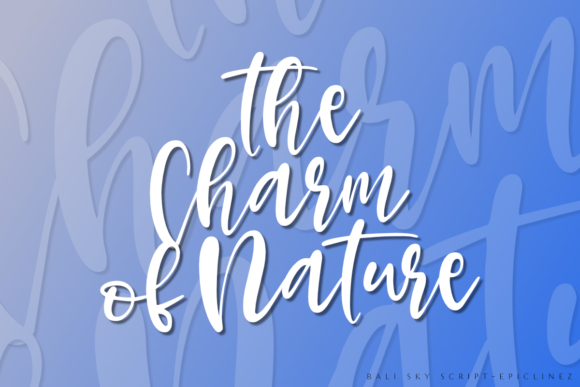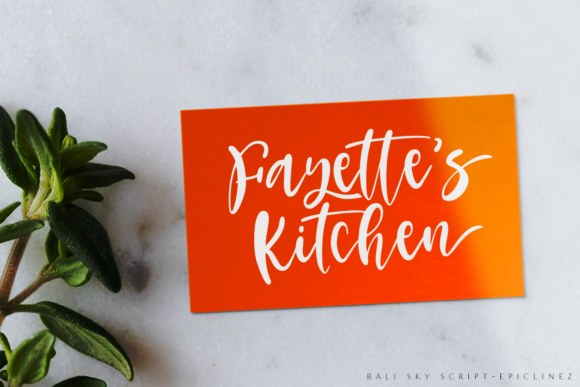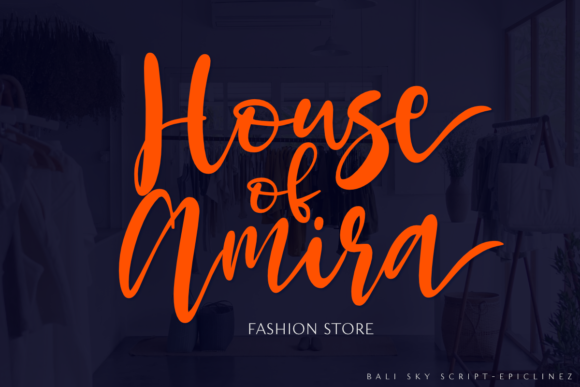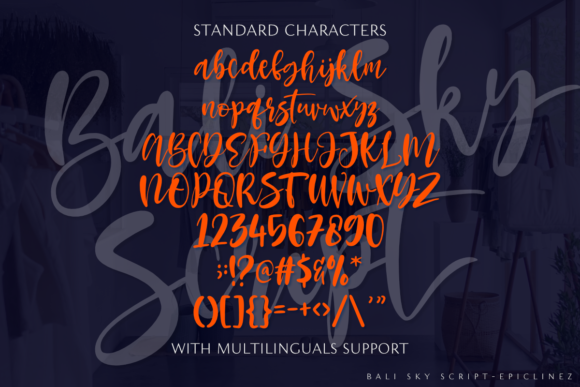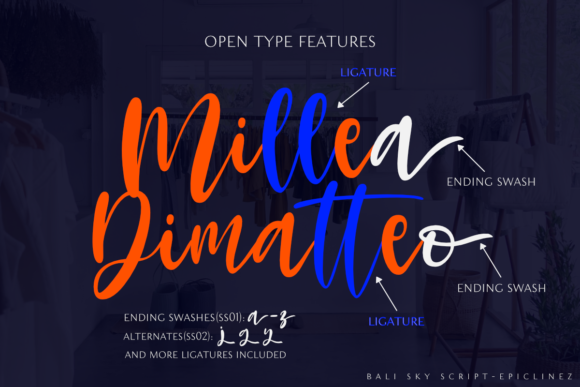
The Perfect Script: Unlocking the Magic of Bali Sky Font
Have you ever stumbled upon a beautiful handwritten note or a gorgeous wedding invitation that left you breathless? For designers, those moments are a treasure trove of inspiration, and often, the key to unlocking a new project’s potential lies in the perfect font. For me, that moment came when I discovered the Bali Sky Font – a stunning script font that adds a touch of elegance to any design.
Bali Sky Font is more than just a pretty face; it’s a versatile tool that can elevate your designs from simple to sublime. Whether you’re crafting wedding invitations, thank you cards, or logos, this font is sure to impress. With its PUA encoding, you can easily access all the glyphs and swashes, giving you complete control over your design. For designers, having access to a high-quality script font like Bali Sky Font is invaluable, allowing you to create truly unique and memorable designs.
- Unique Characteristics: Bali Sky Font features a unique blend of traditional and modern design elements, with intricate details and ornaments inspired by Balinese architecture and culture.
- Font Style: Script, Calligraphy
Bali Sky Font Review
Overall, I think the Bali Sky Font has some great qualities that make it a solid choice for certain projects. ✨ One of the things I like about this font is its unique blend of modern and tropical elements. It’s a great choice for designs that need to evoke a sense of relaxation and calm.
Another thing that works well is the Bali Sky Font’s flexibility. It comes in a range of weights and styles, making it easy to use in a variety of contexts. From headings to body text, this font can adapt to fit your needs. ✨ Additionally, the font is highly legible, even at smaller sizes, which is a major plus in my book.
- ⚠️ The Bali Sky Font may not be the best choice for projects that require a lot of bold or dramatic text. The font’s relaxed feel can make it difficult to convey a sense of urgency or importance.
- ⚠️ Some users may find the font’s tropical aesthetic a bit too gimmicky or overused. If you’re looking for a font that will really stand out from the crowd, you may want to consider something else.
Overall, I think the Bali Sky Font is a solid choice for designers who are looking for a unique and flexible font. While it may not be perfect for every project, it’s definitely worth considering for designs that need a relaxed, tropical feel.
Bali Sky Font is ideal for creating beautiful and elegant designs, such as:
– Travel brochures and guides
– Luxury brand logos and packaging
– Fine art and photography projects
Tips for Getting the Most Out of Bali Sky Font
For the best results, use Bali Sky Font in conjunction with other elegant and refined design elements, such as:
– Soft colors and pastel hues
– Delicate patterns and textures
– High-quality images and graphics
– Minimalist and clean design layouts
Alternatives to Bali Sky Font
Playfair Display is a luxurious and elegant script font, perfect for high-end designs such as luxury brands, weddings, and special events. Its intricate details and classic feel make it a great alternative to Bali Sky Font for designs that require sophistication and refinement.
Comparison to Bali Sky Font: While both fonts have a luxurious feel, Playfair Display is more formal and traditional, whereas Bali Sky Font is more modern and exotic. Playfair Display is also more versatile and can be used in a wider range of designs, from invitations to advertisements.
Lato is a modern sans-serif font that is perfect for designs that require a clean and minimal look. Its sleek lines and geometric shapes make it a great alternative to Bali Sky Font for designs that require simplicity and clarity.